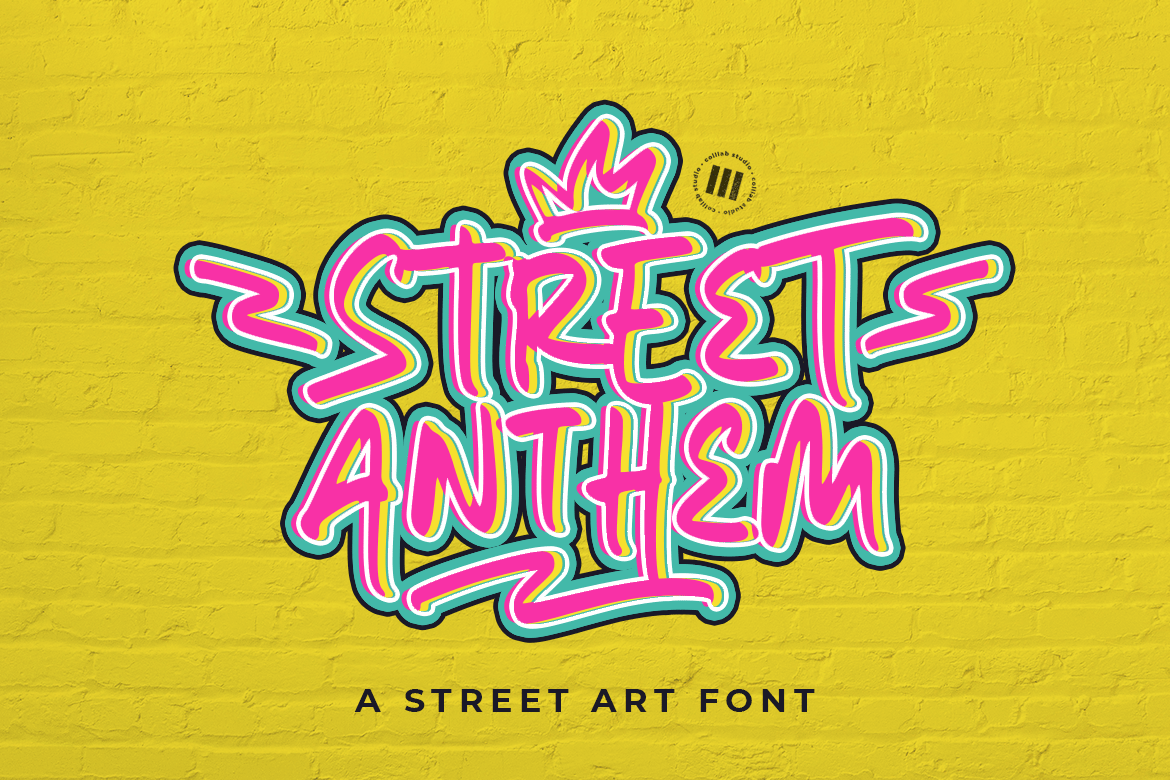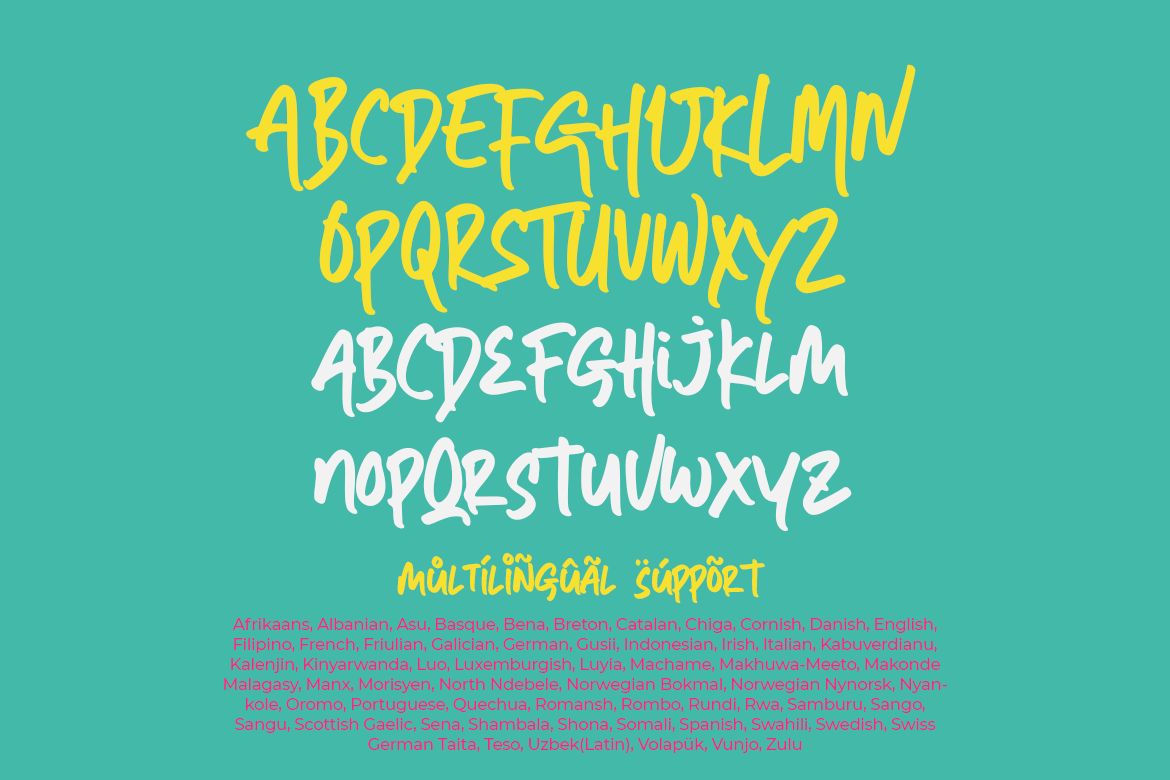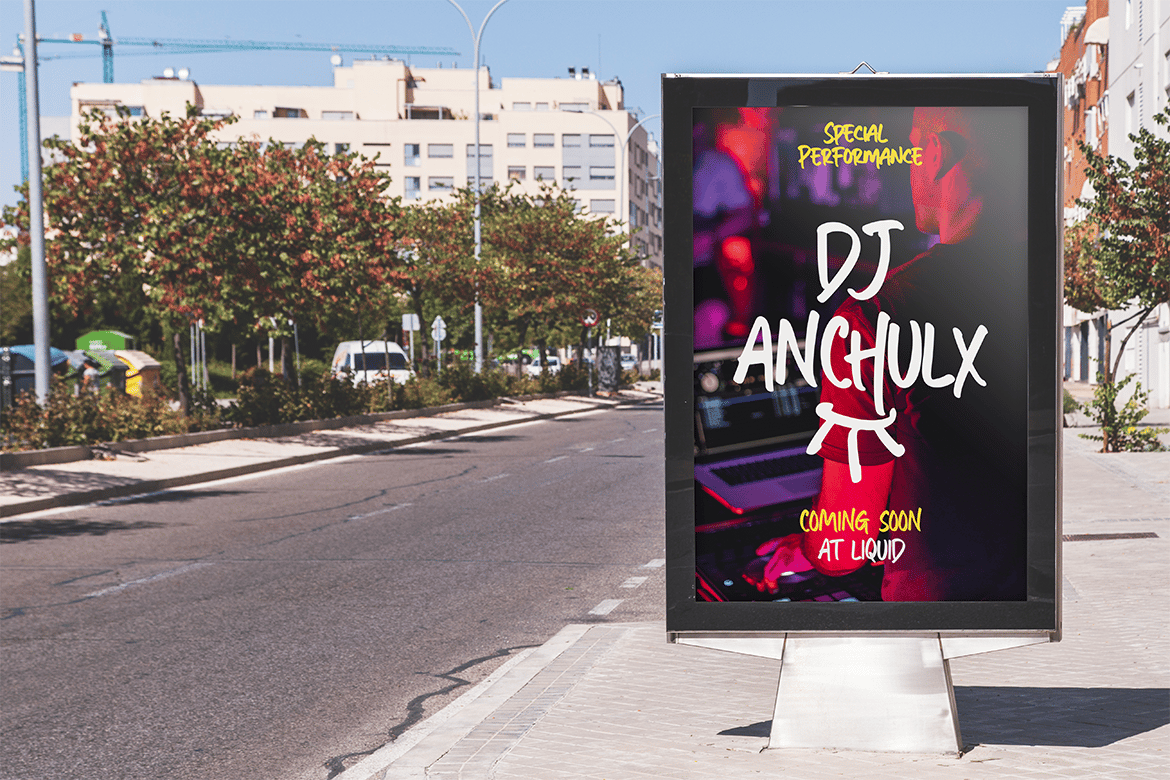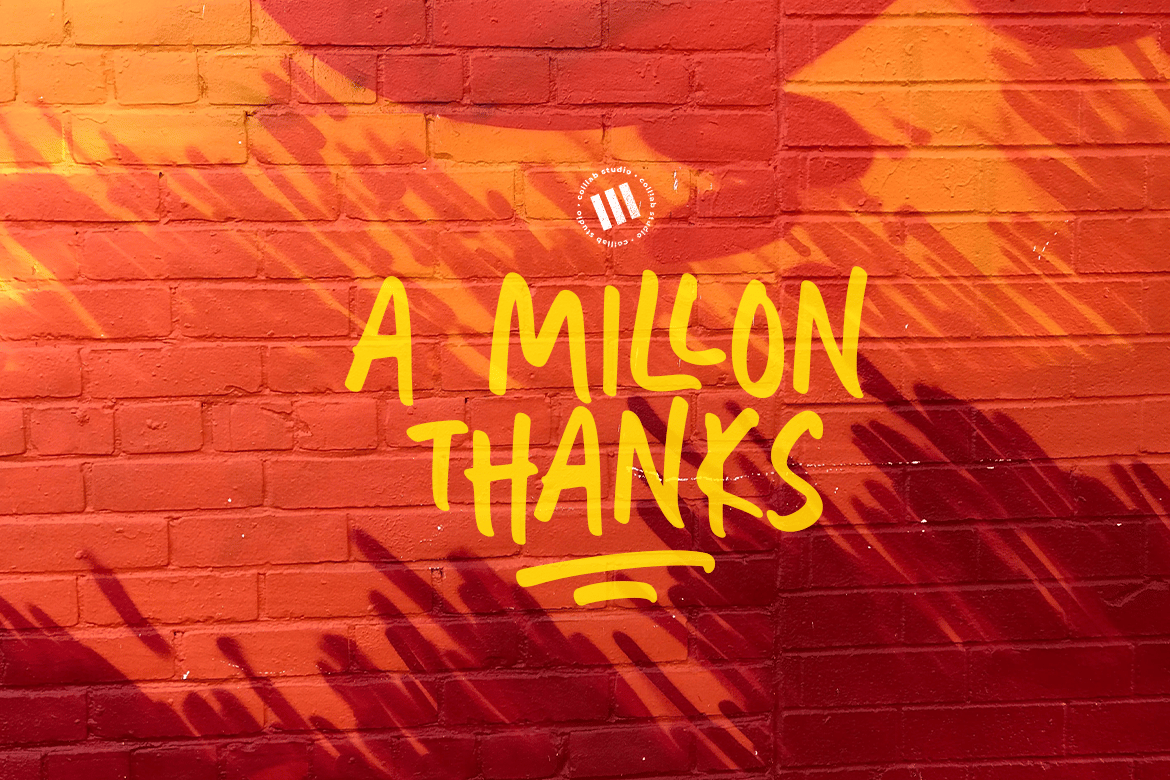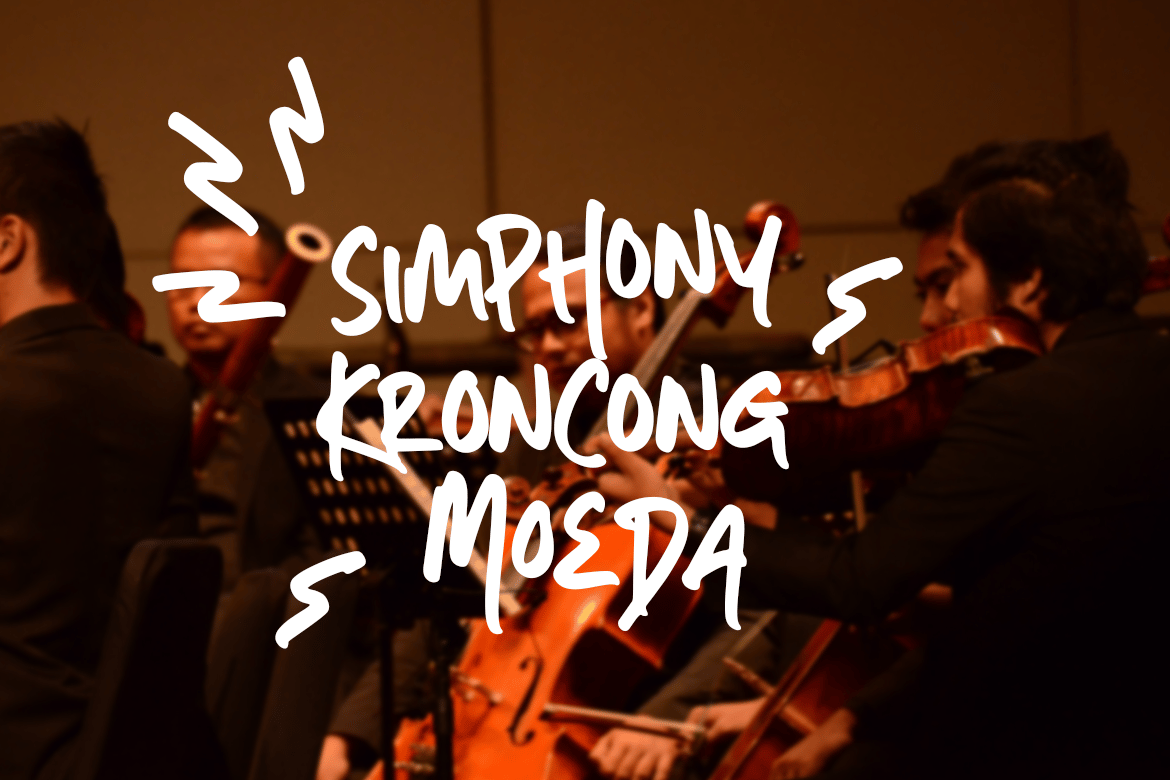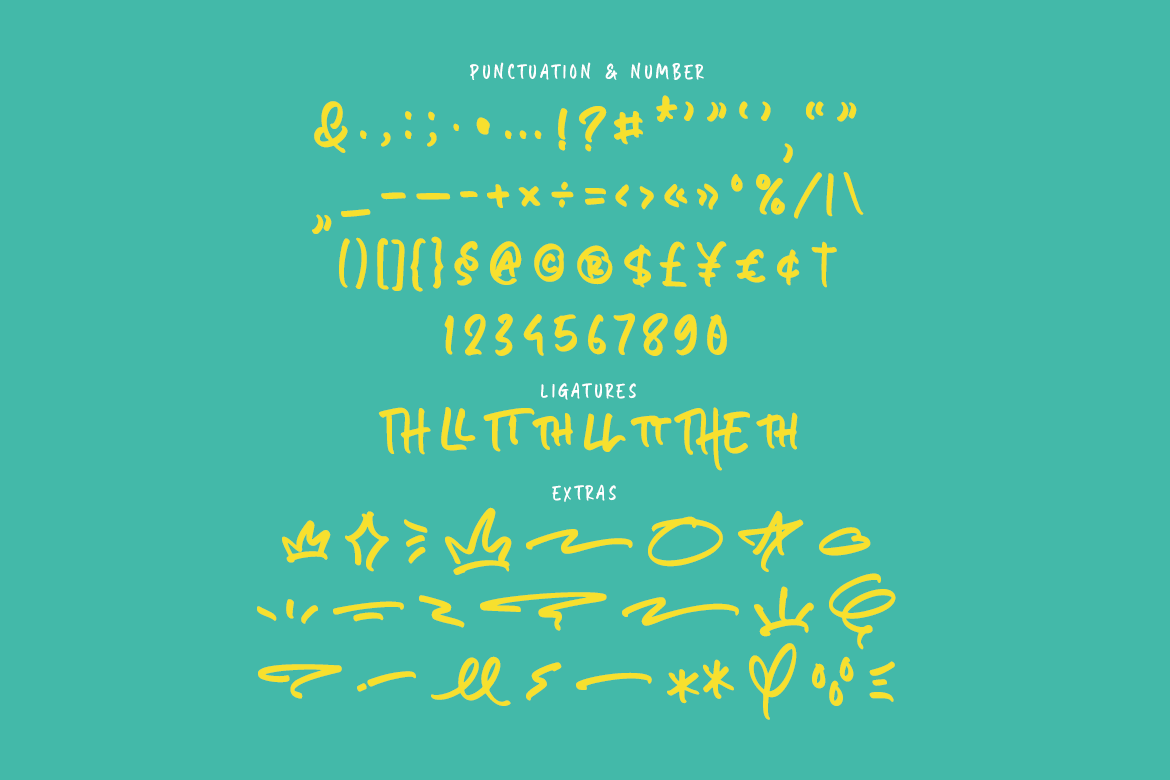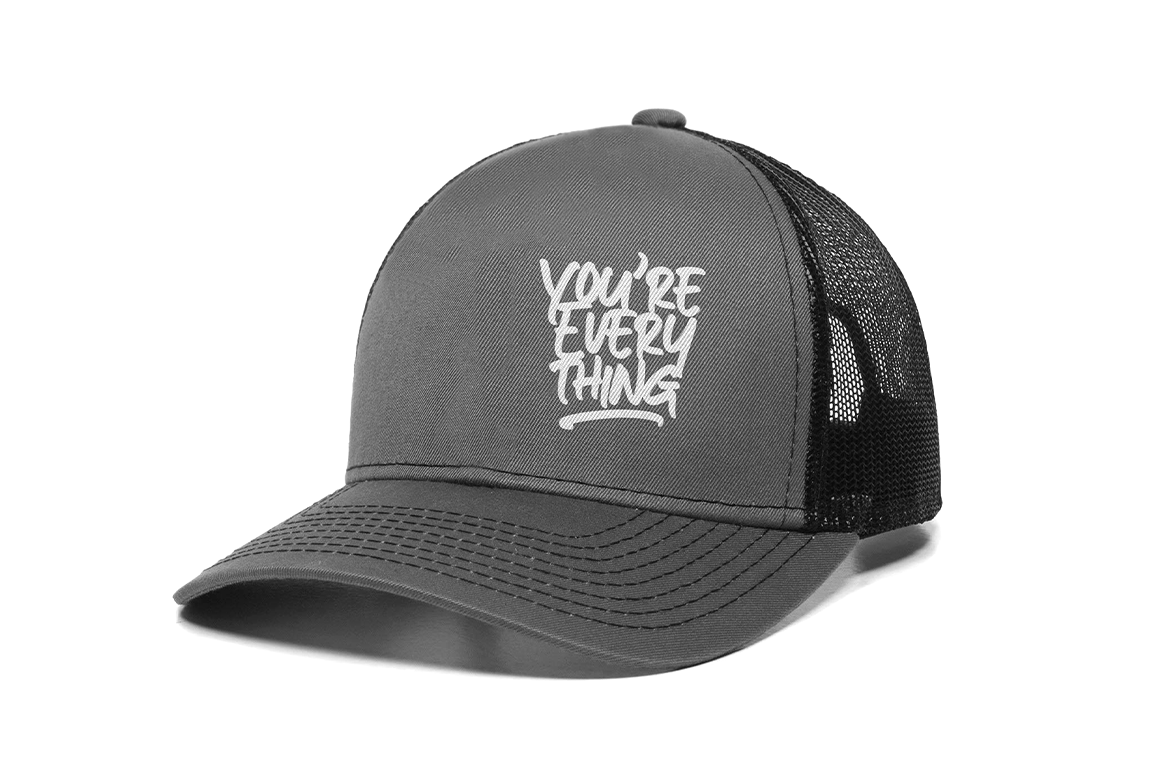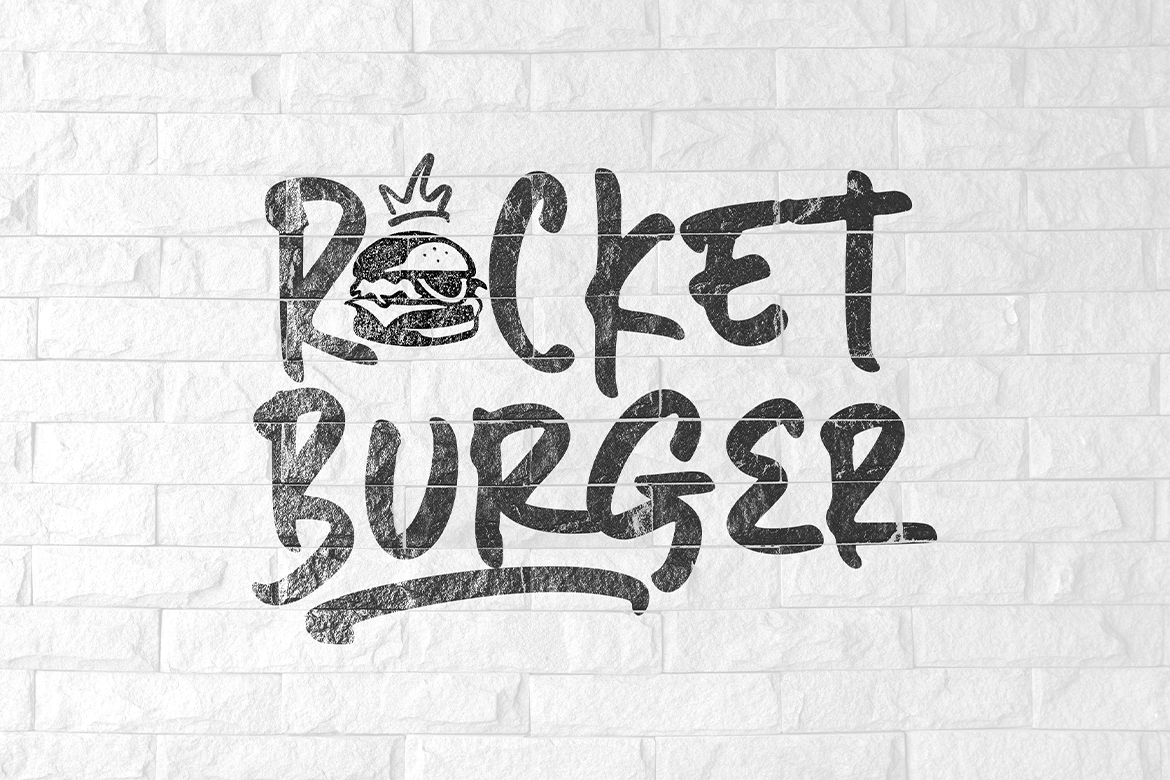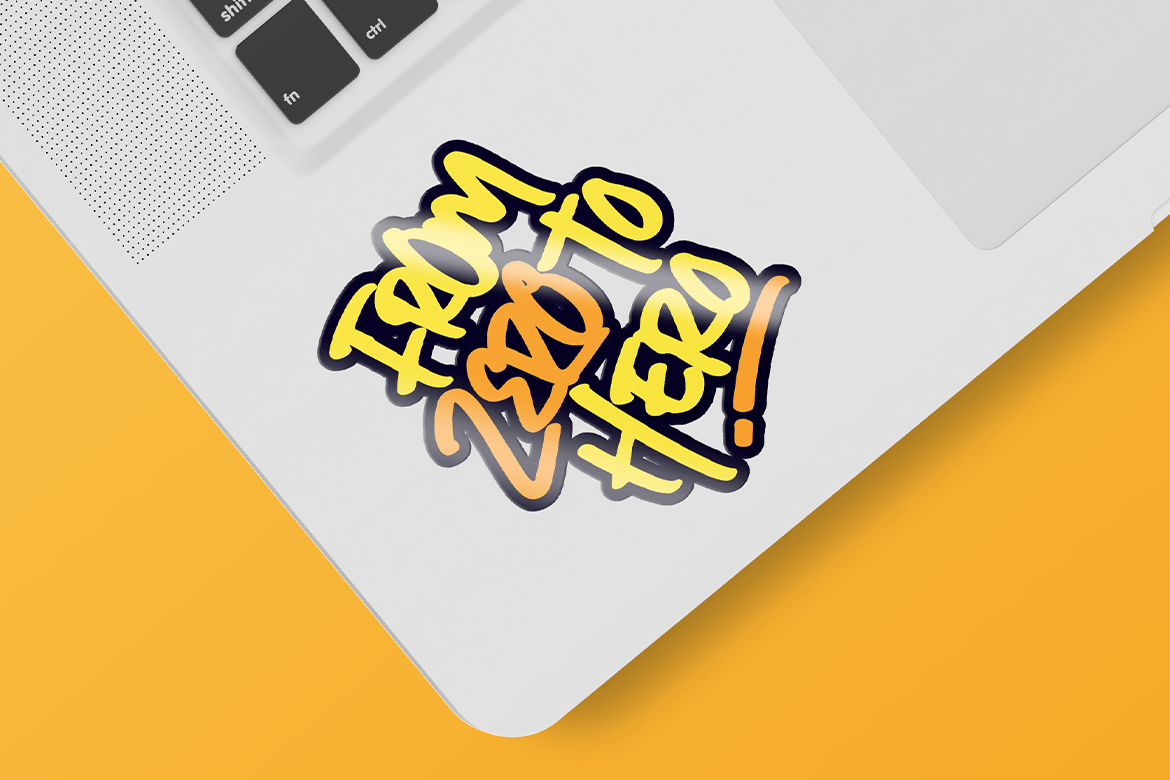
Street Anthem – An Urban Font
Street Anthem is an urban font that is suitable for design projects; wild display, music, graffiti, adventure, playful theme, logo, branding, poster, quotes, display, eye-catching social media posts, and any other designs.
Full Glyphs
SomeLigatures
Some Extra Dingbats (just typing c_1 until c_24 to feature all)
Numbers, punctuations, and symbols